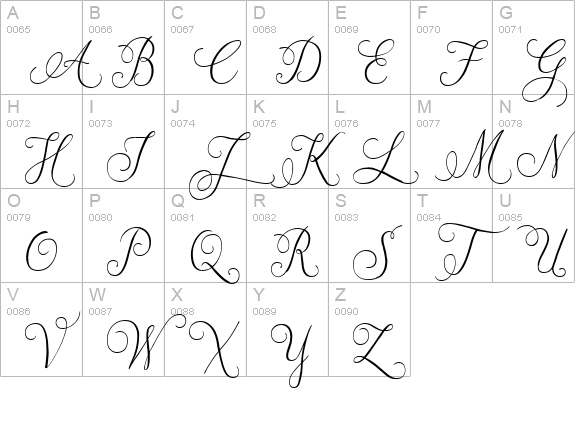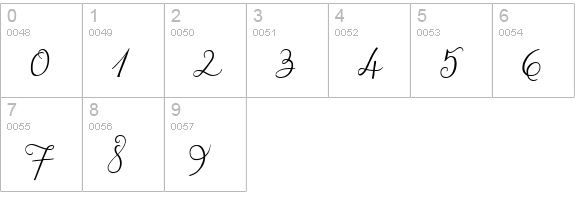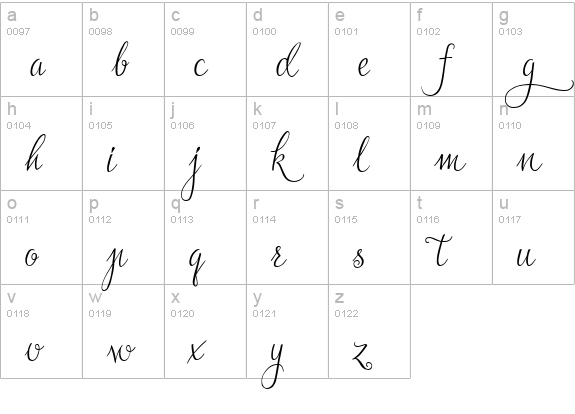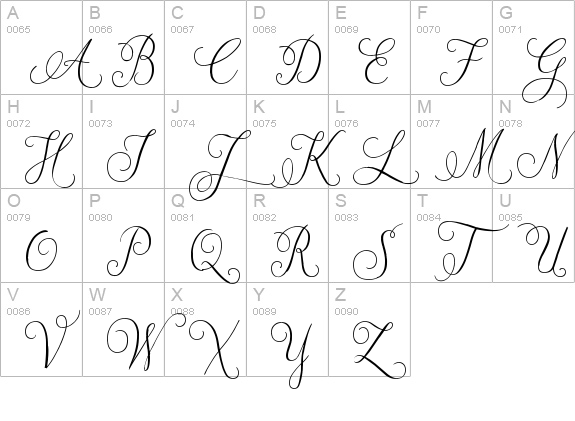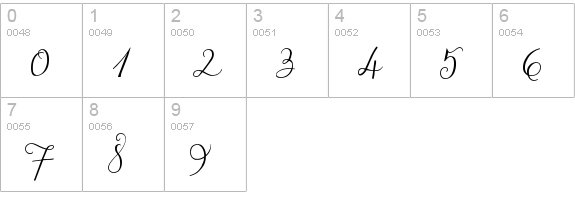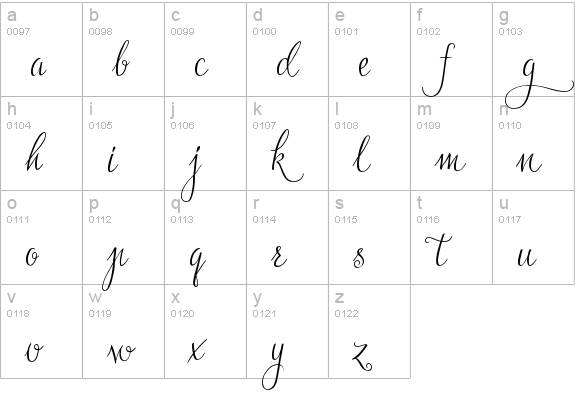
Jasminum Font Details
Jasminum font is a beautiful and elegant typeface that exudes sophistication and charm. Its delicate strokes and graceful curves make it perfect for adding a touch of class to any design project. Whether you're working on a wedding invitation, a branding project, or a social media post, Jasminum font is sure to make a lasting impression. The best part about Jasminum font is that it is completely free! You can download it at FontsMarket.com and start using it in your projects right away. With its versatility and timeless appeal, Jasminum font is a must-have for any designer looking to elevate their work. Get your hands on this stunning typeface today and take your designs to the next level.